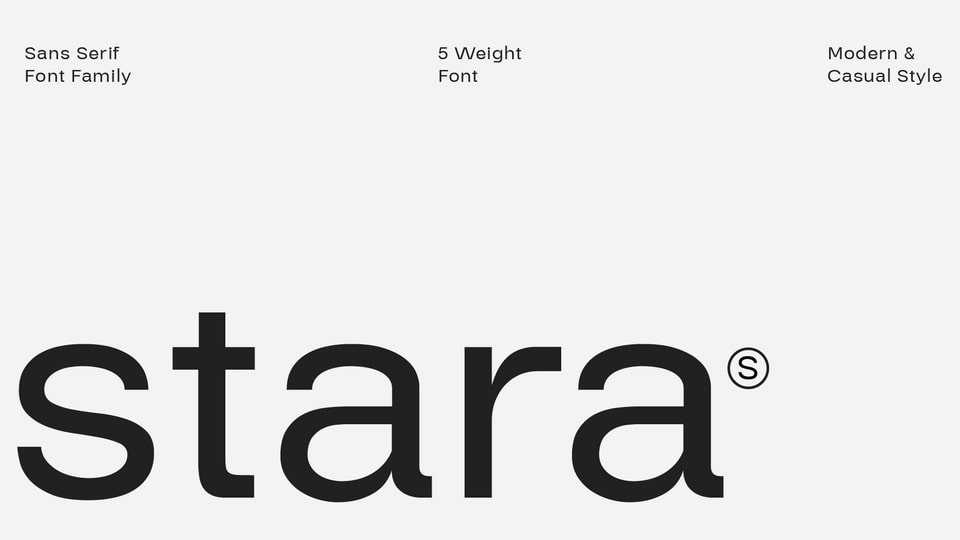
Download Stara Sans font, a sans serif typeface that combines simplicity with elegance. With its clean design and balanced proportions, this font gives off a modern and professional feel.
Designer: Yukita Creative